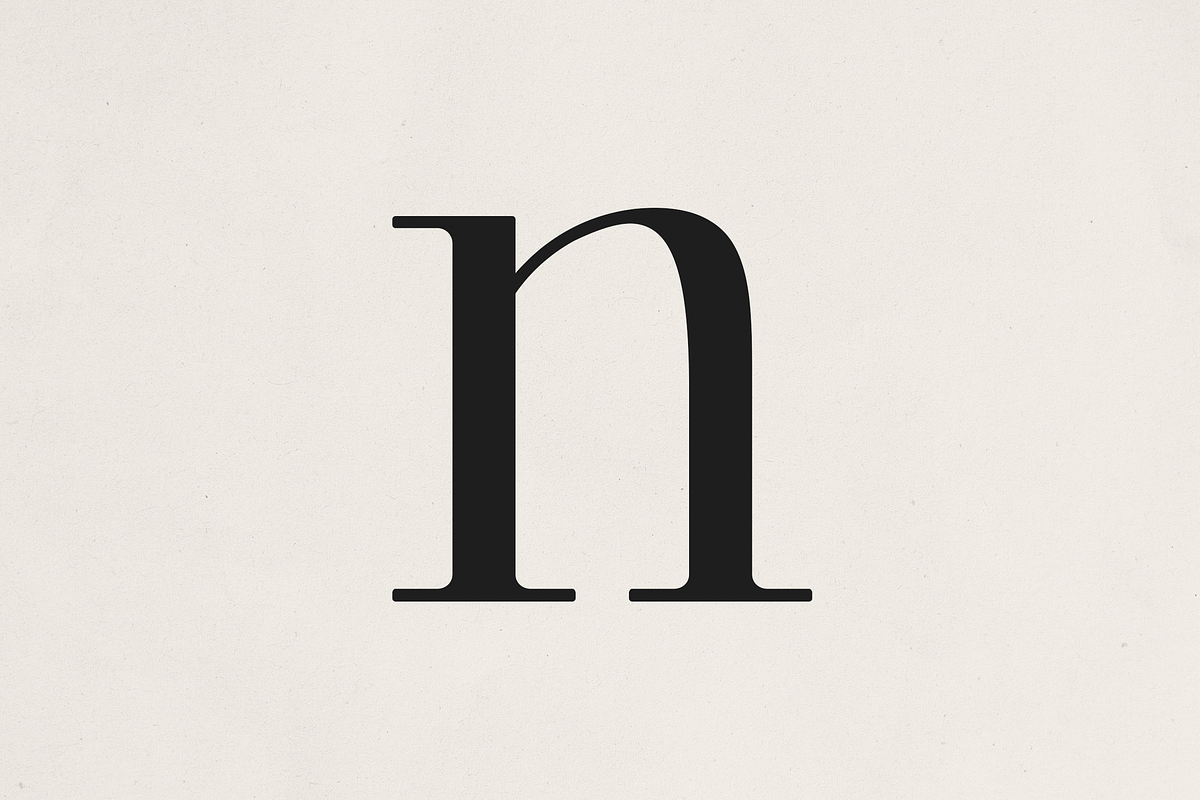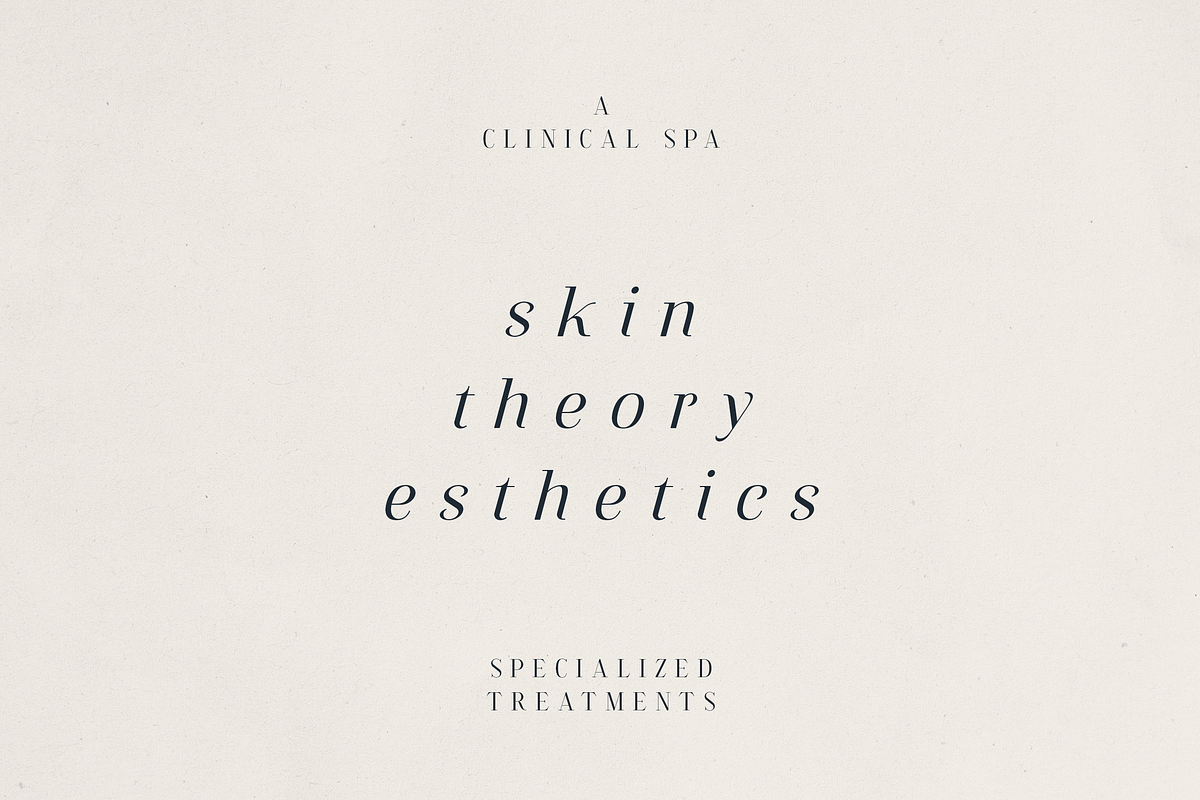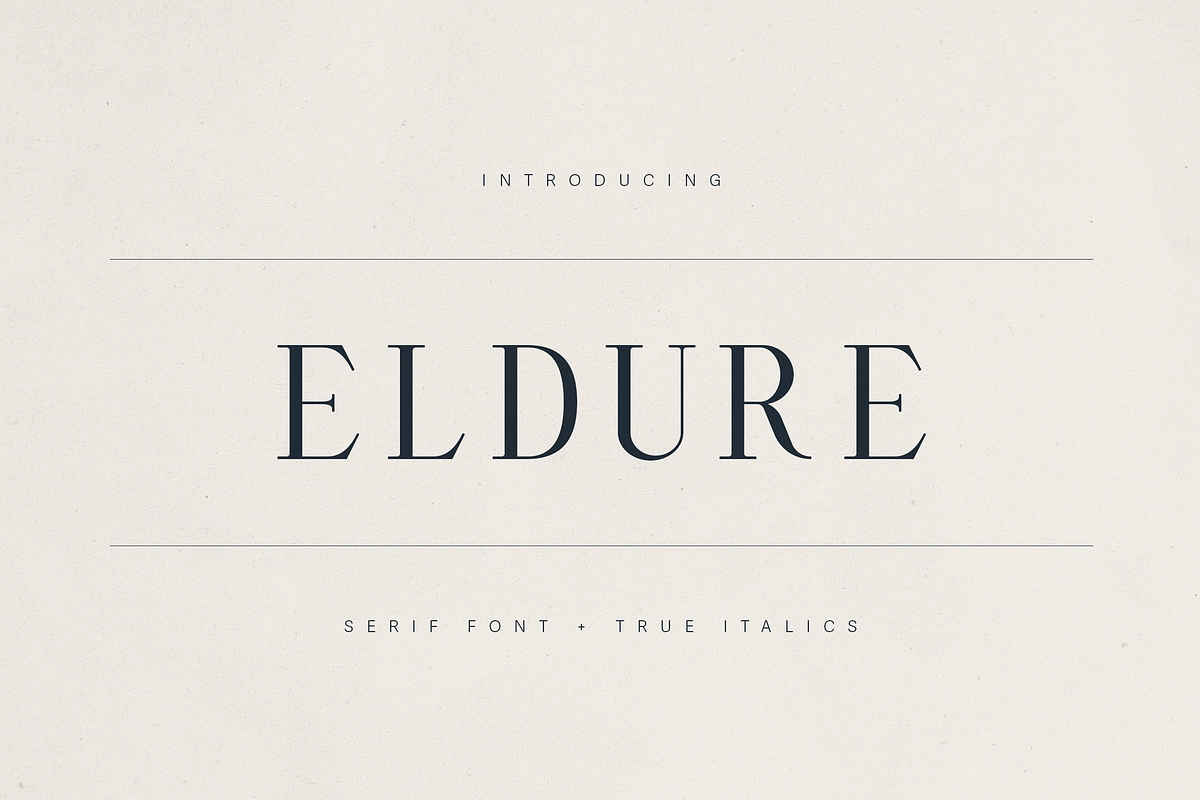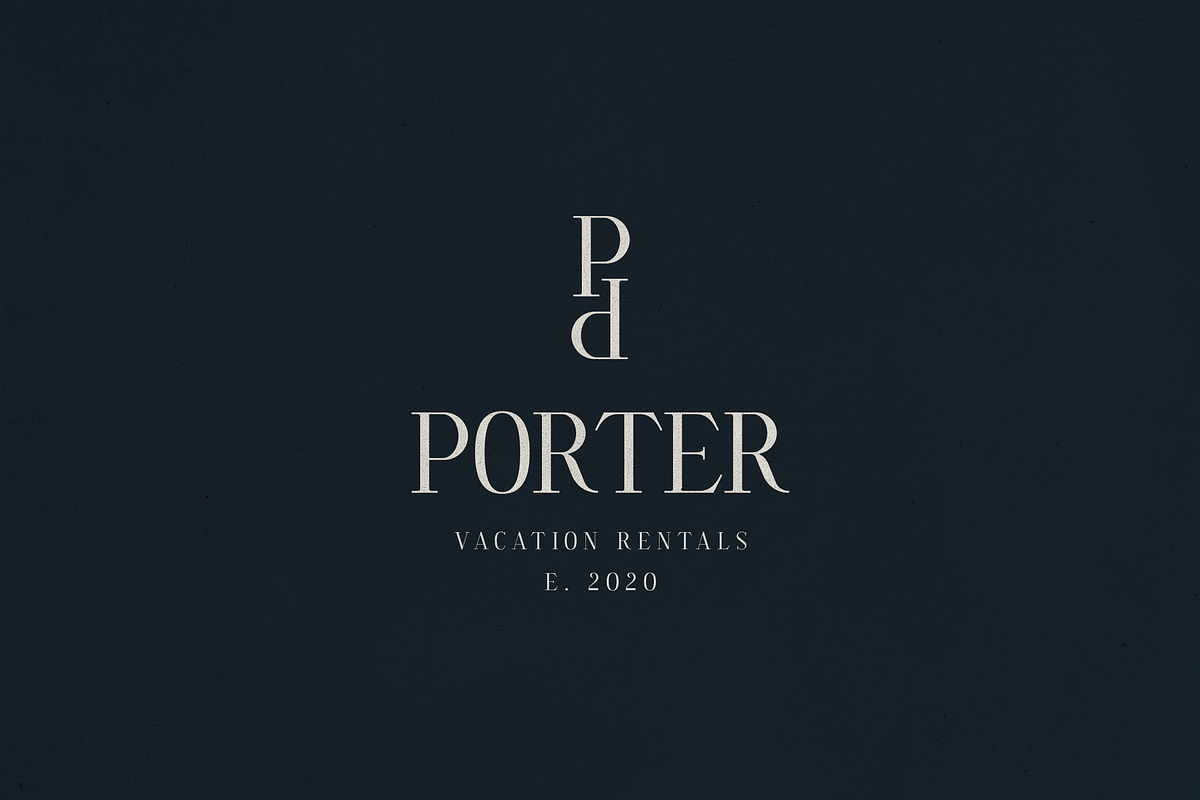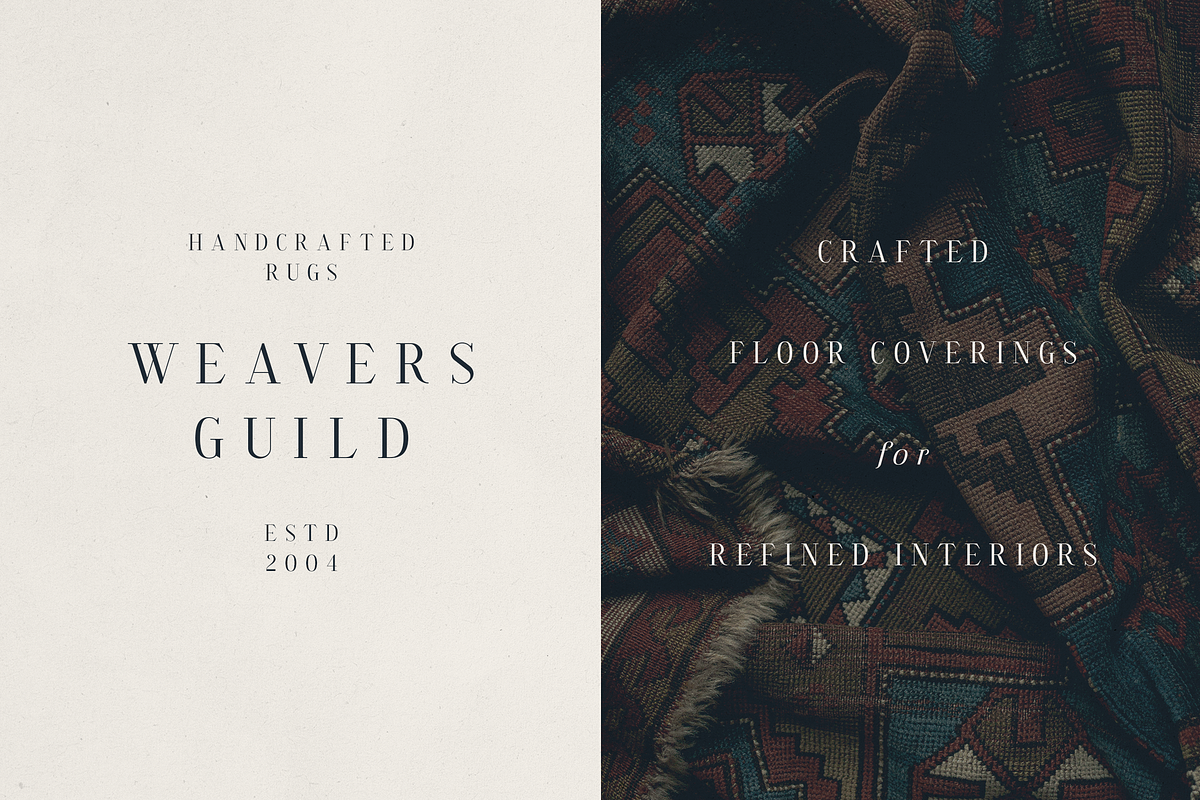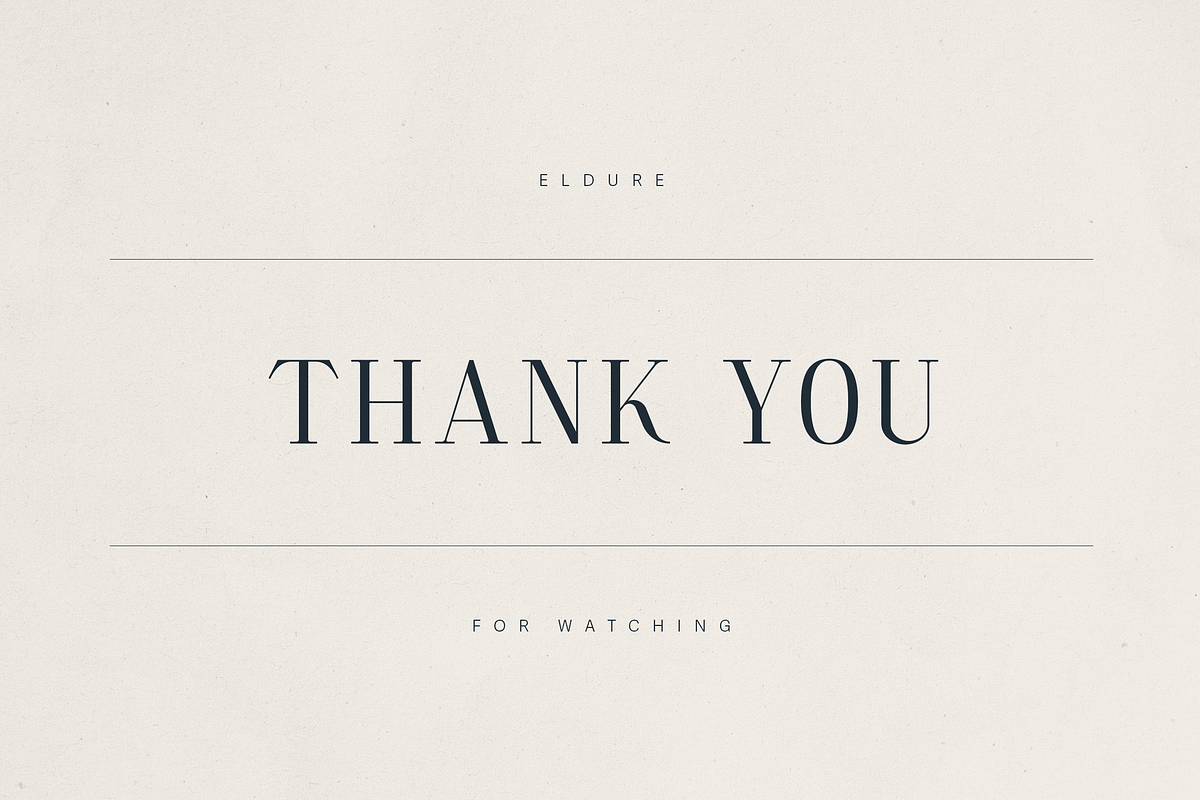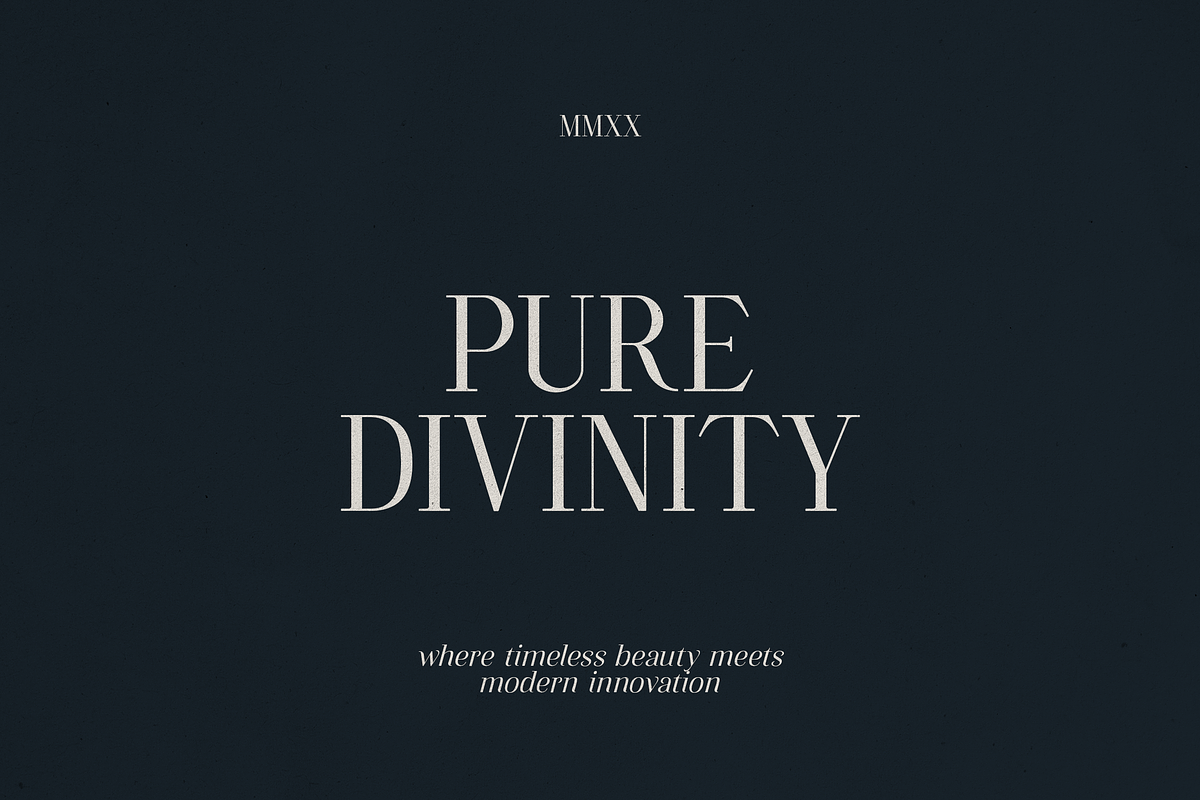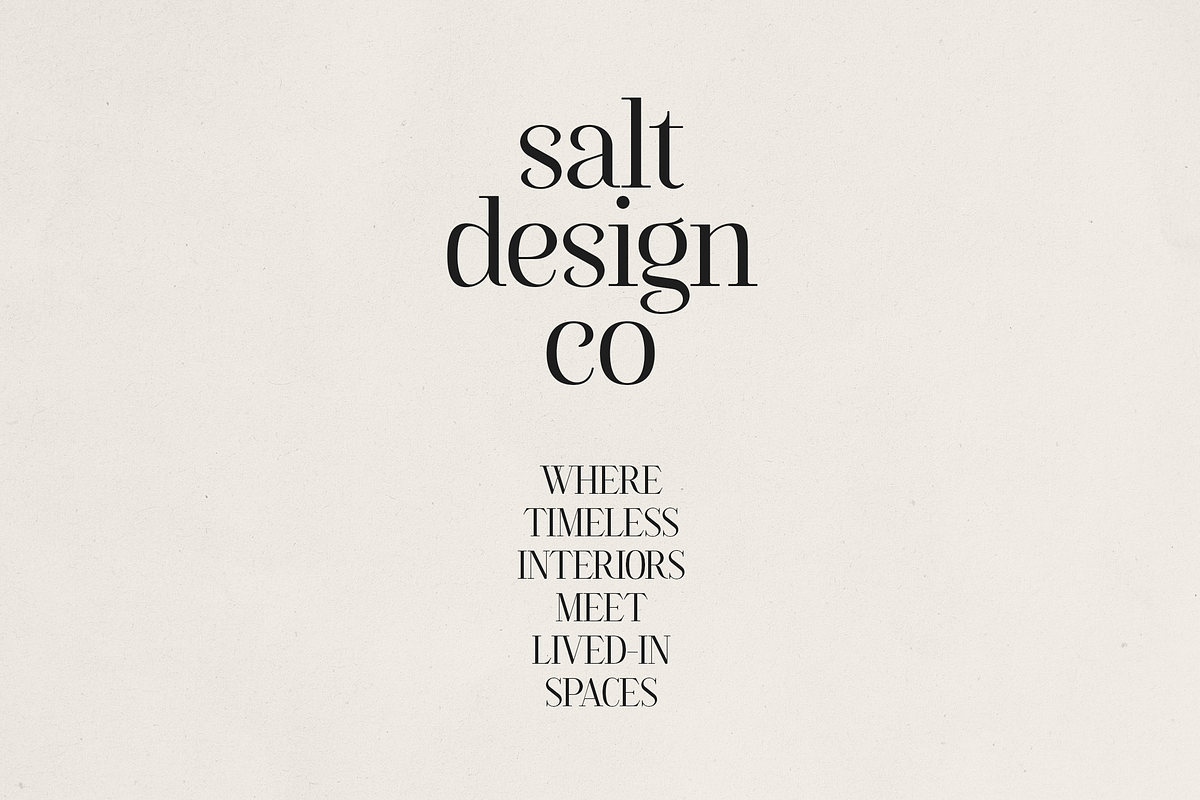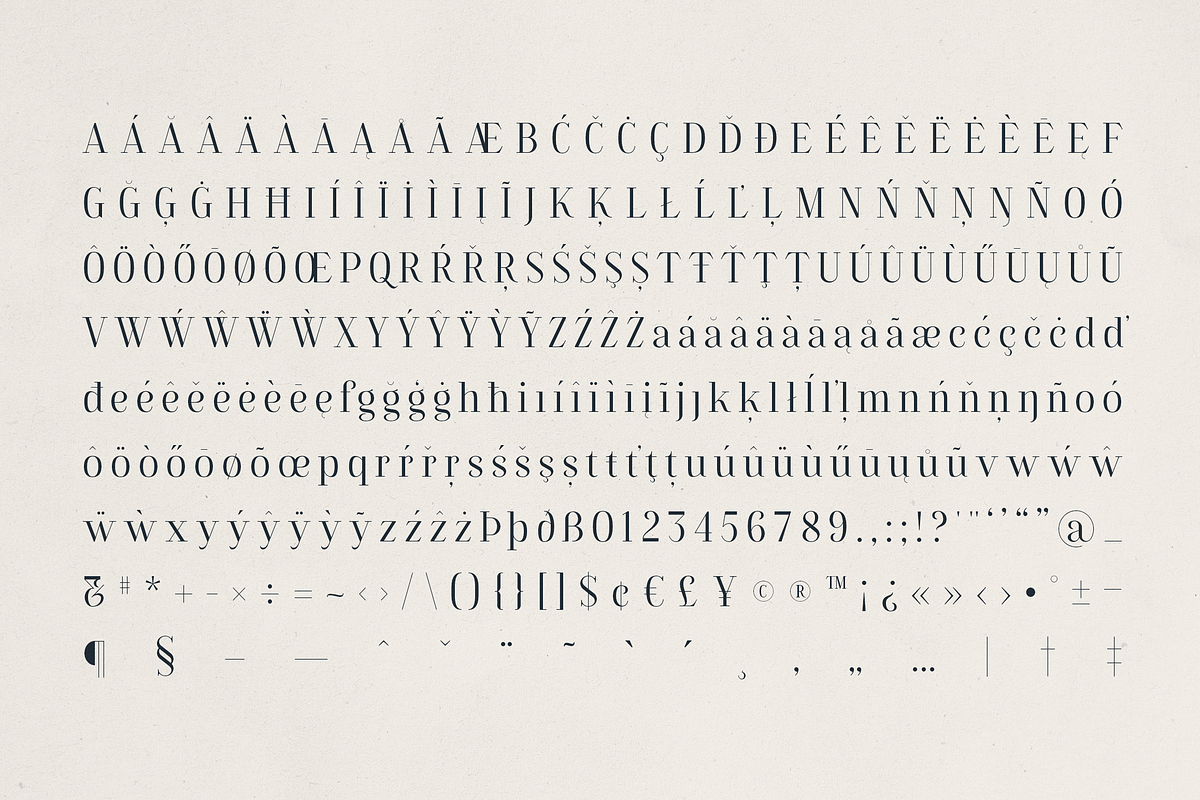
Eldure – Timeless Serif Font
Eldure – Timeless Serif Font with True Italics
Introducing Eldure, a refined serif typeface designed for elegance, editorial charm, and timeless sophistication. Featuring true italics, high contrast strokes, and carefully crafted letterforms, Eldure is ideal for branding, luxury packaging, lifestyle magazines, weddings, and upscale design projects.
Eldure draws inspiration from classic editorial typography, blending traditional Roman structure with modern finesse. From elegant headlines to delicate body copy, its balanced proportions and nuanced serifs bring a sense of grace to any layout.
- Serif font with Roman and true italic styles
- Full Latin language support (87+ languages)
- High-contrast stroke modulation for a luxurious feel
- Perfect for editorial design, fashion, interiors, and refined branding
Whether you’re designing for a boutique brand, a curated publication, or a heritage product line, Eldure delivers both beauty and precision.